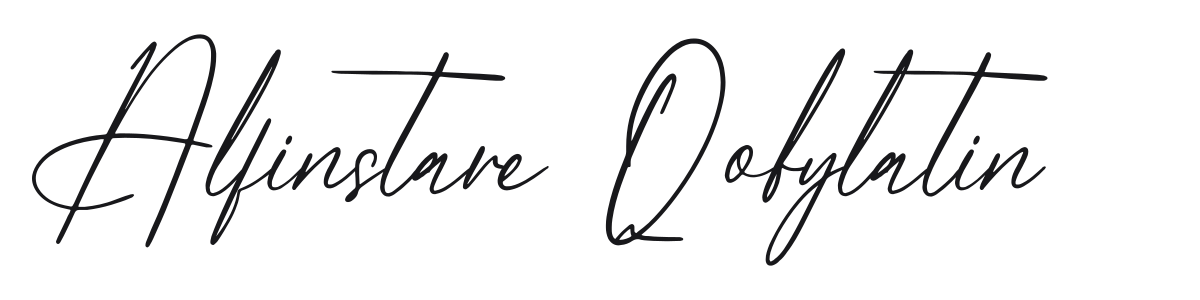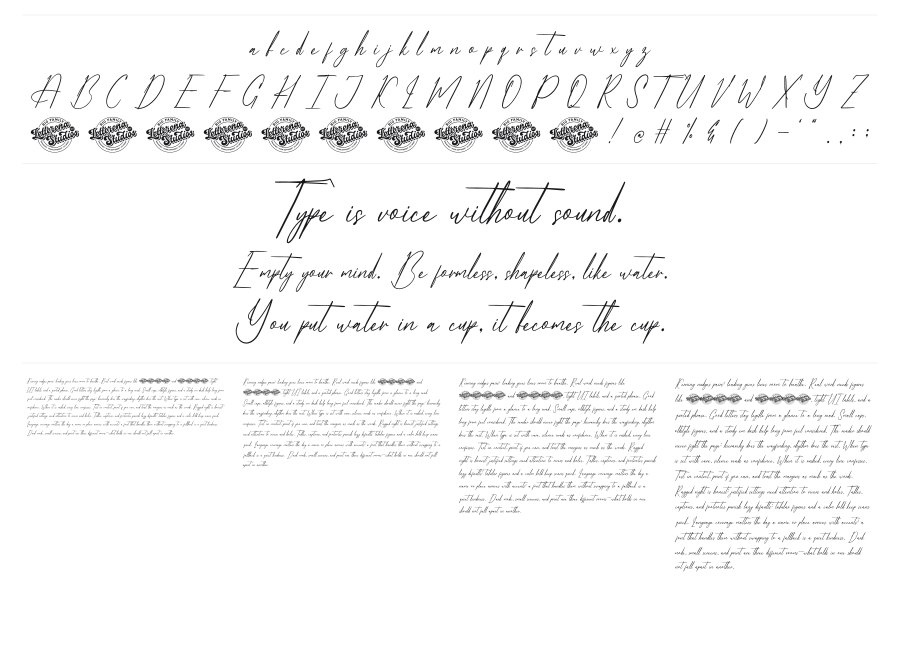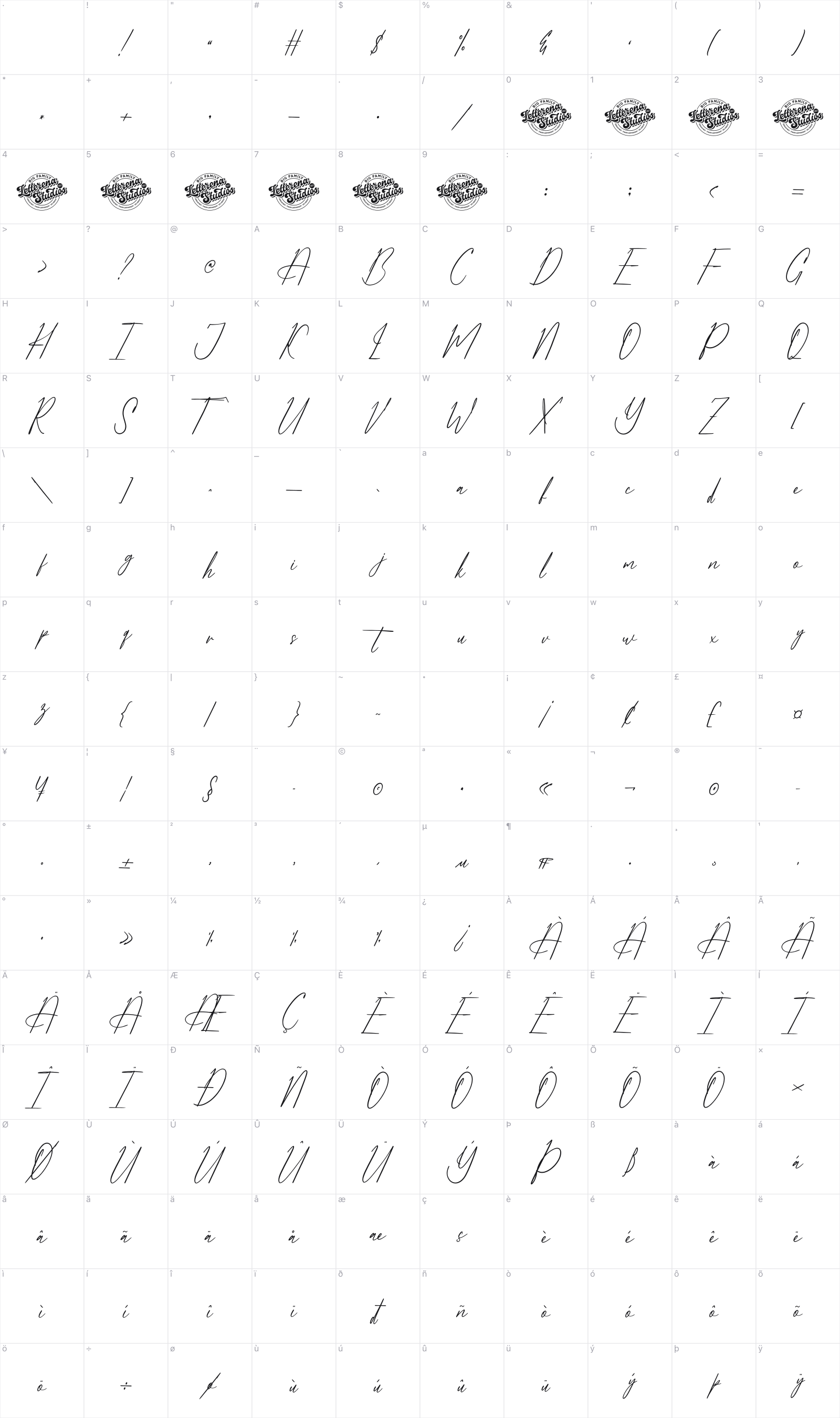
Alfinstare Qobylatin
Alfinstare Qobylatin is a flowing signature script with the loose, spontaneous quality of ink on paper. Long swashing strokes extend far beyond each word, lending it a cinematic elegance that reads beautifully at large sizes. It fits naturally in wedding stationery, luxury branding, and fashion editorial contexts.